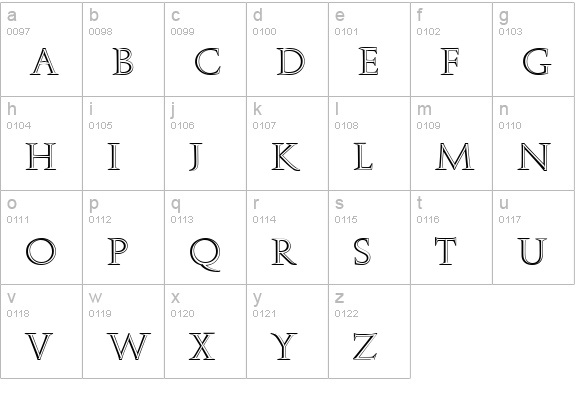
DisplayNo1URWD Font Details
DisplayNo1URWD is a captivating and versatile font that effortlessly commands attention with its unique and modern design. This font exudes sophistication and elegance, making it the perfect choice for a wide range of creative projects. The bold strokes and sharp angles of DisplayNo1URWD create a striking visual impact that will leave a lasting impression on your audience. What sets DisplayNo1URWD apart is not only its stunning appearance, but also the fact that it is available for free download at FontsMarket.com. This means that you can easily access this high-quality font without any cost, making it a valuable addition to your design toolkit. Whether you're working on branding materials, advertising campaigns, or any other project that requires a touch of style, DisplayNo1URWD is sure to elevate your work to the next level. Don't miss out on the opportunity to enhance your designs with the impressive DisplayNo1URWD font. Download it for free today at FontsMarket.com and unleash your creativity with this exceptional typeface.